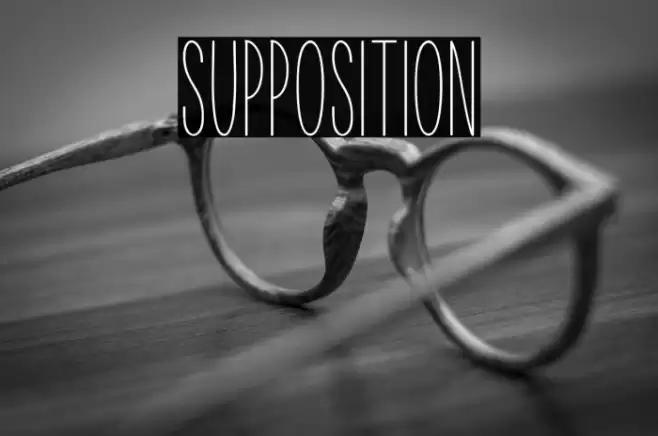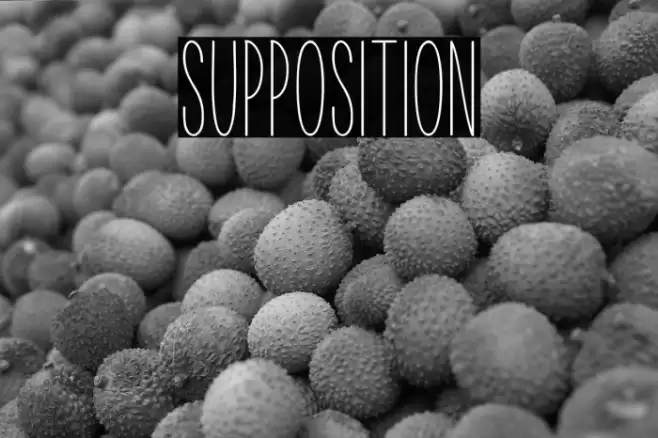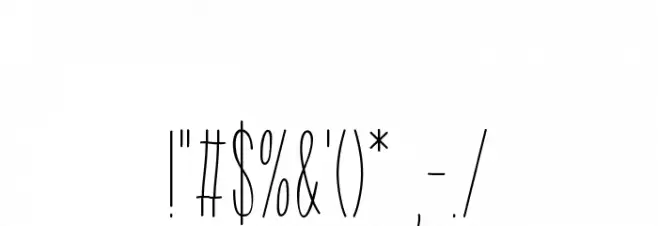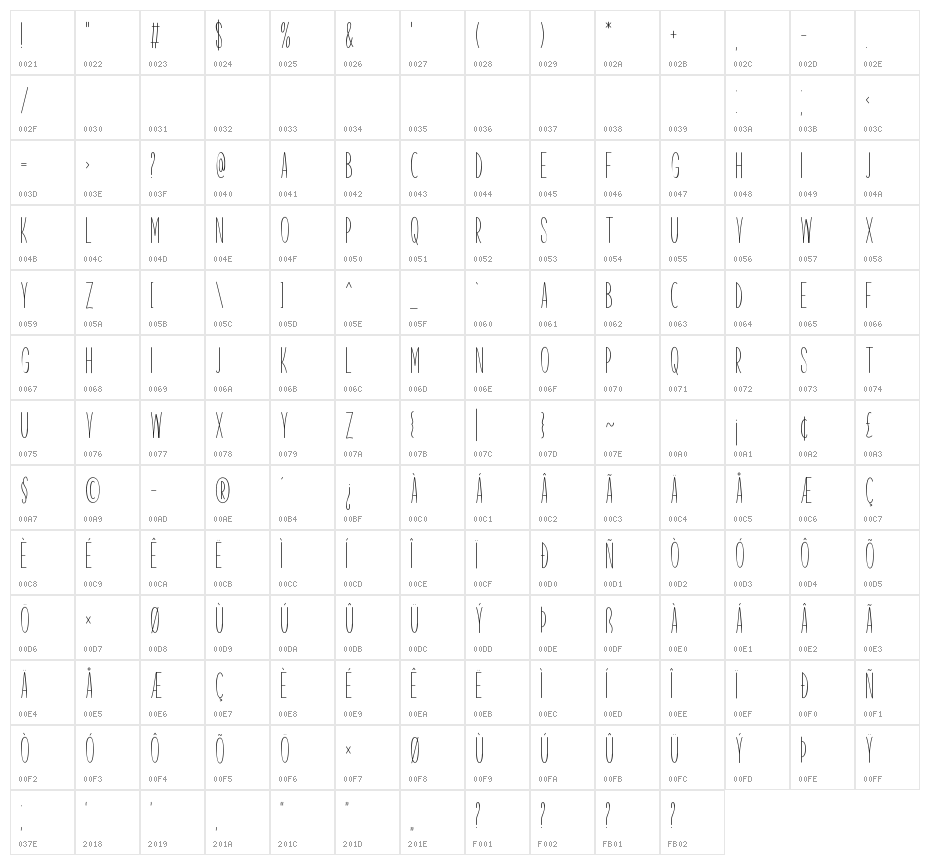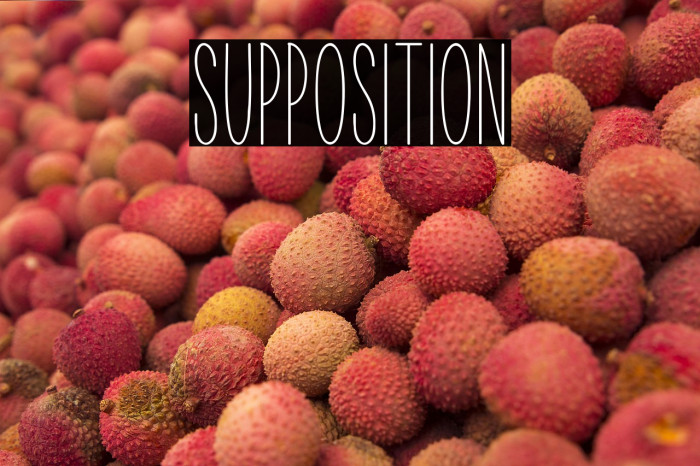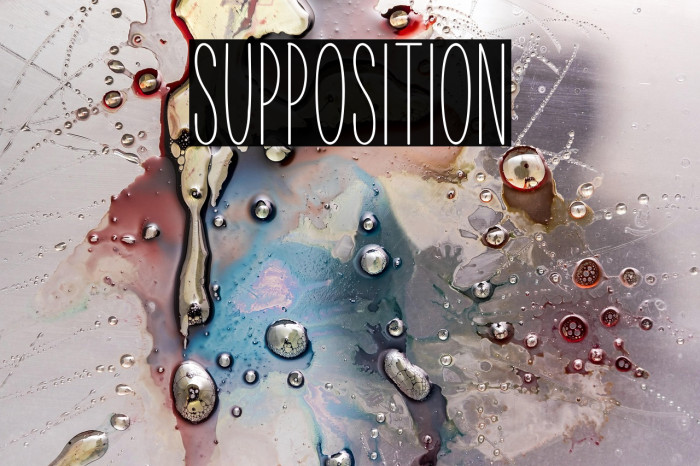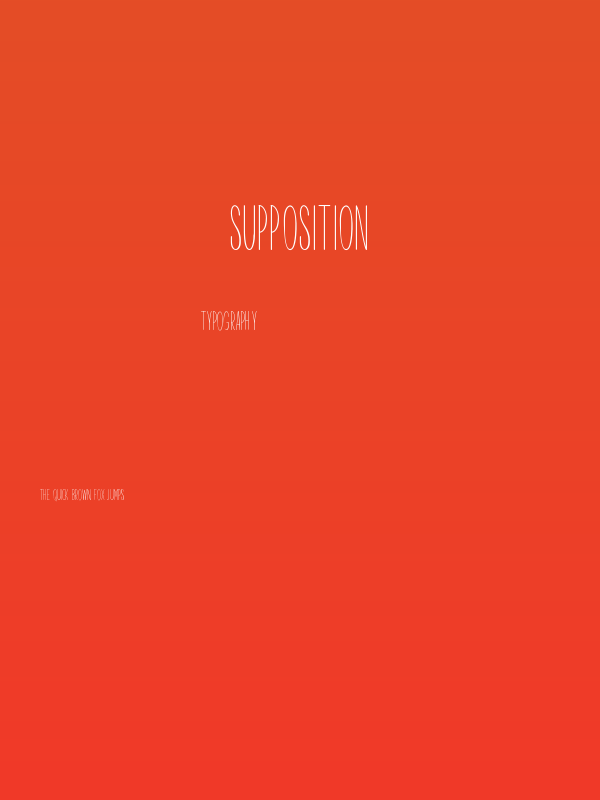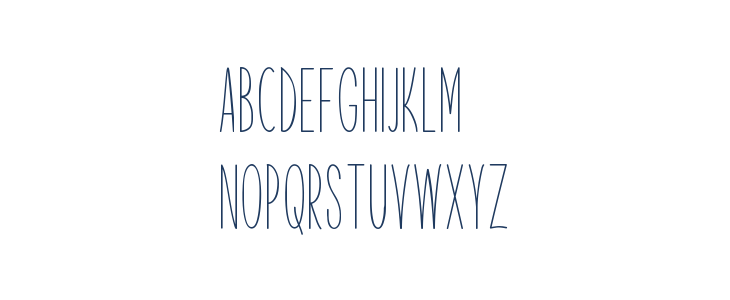
Supposition Font
Supposition Description
This font features tall, slender characters with a distinctly modern and elegant appearance. The strokes are consistent in width, giving it a clean and uniform look. The characters are slightly condensed, which enhances its sleek and sophisticated style. The uppercase and lowercase letters maintain a harmonious balance, while the numerals and special characters are designed to complement the overall aesthetic. The font's minimalistic design makes it versatile for various applications, offering a contemporary feel that is both stylish and functional.
A tall, slender, and modern font with a sleek and elegant appearance from Regular fonts.
- Proposed Projects: Ideal for fashion magazines, luxury branding, minimalist posters, and elegant invitations.